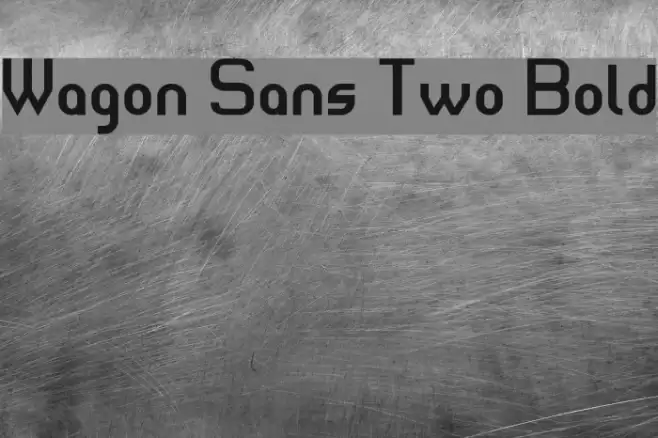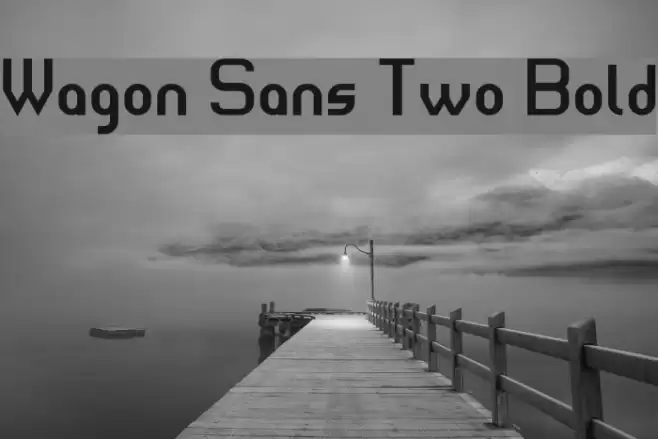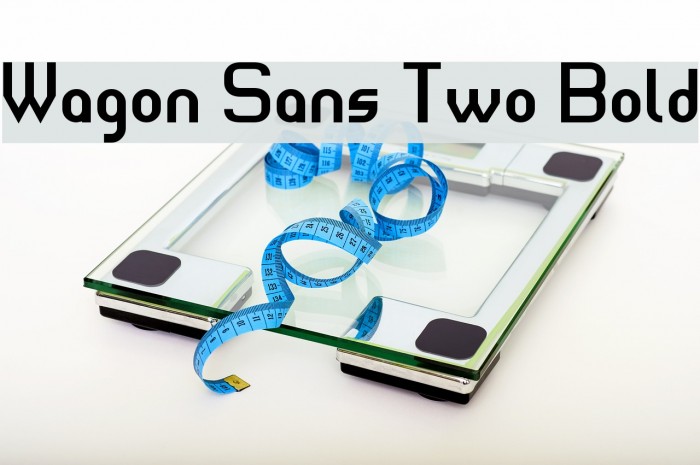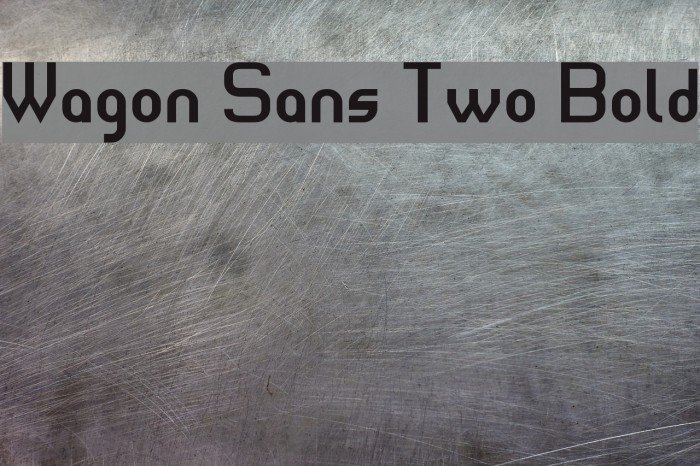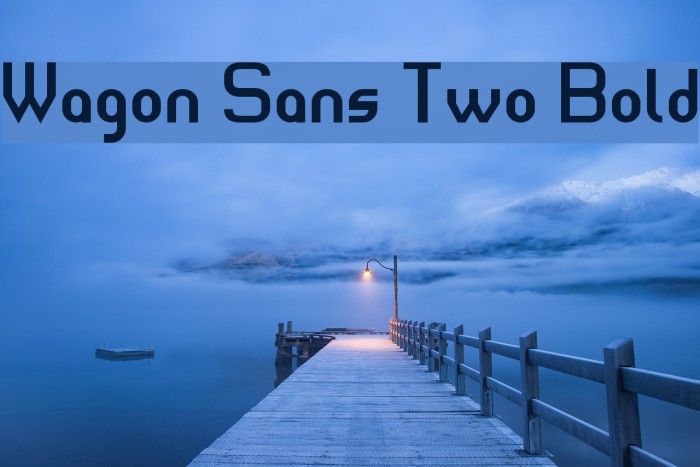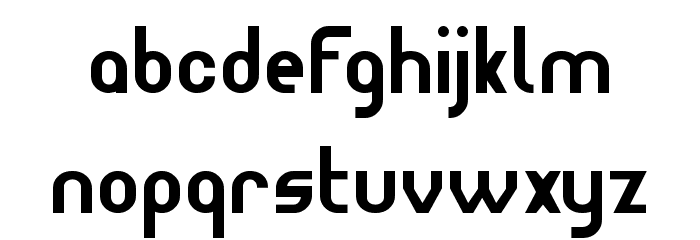
Wagon Sans Two Bold Font
Wagon Sans Two Bold Description
This font features a bold, geometric sans-serif style with a modern and clean appearance. The uppercase letters are uniform in height, with a slightly condensed width that gives a compact look. The lowercase letters maintain a consistent style, with rounded edges that soften the overall appearance. The numerals are clear and legible, matching the boldness of the alphabet. Special characters are well-defined and integrate seamlessly with the rest of the typeface. The font's design is versatile, suitable for both digital and print media, offering a contemporary feel that is both professional and approachable.
A bold, geometric sans-serif font with a modern, clean look from Uncategorized fonts.